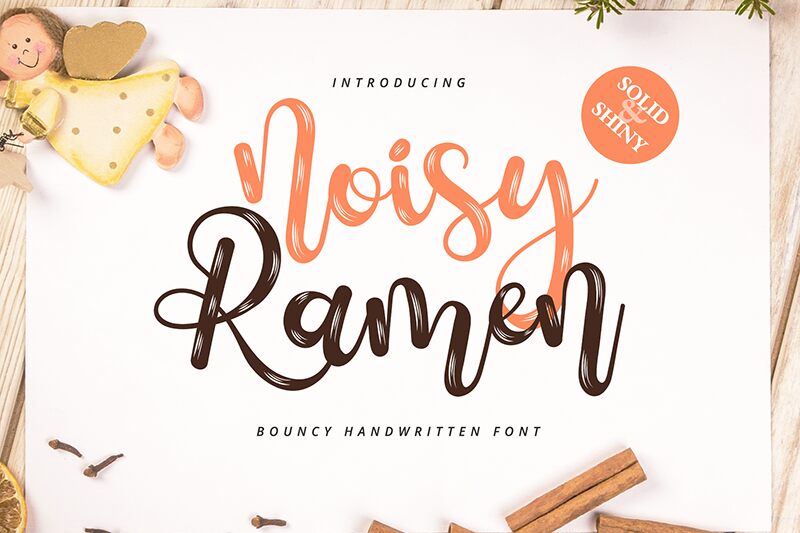
Noisy Ramen
Noisy Ramen font by Airotype Studio is an expressive brush typeface with a hand-drawn feel and artistic flair. This free handwritten font has an elegant flow and a lively presence which instantly grabs attention when combined with other design elements. The letters are smooth, natural, and highly readable.
Add Noisy Ramen to your branding designs, quotes, invitations, labels, apparel designs, advertising posters or banners. Get it included in packaging designs and social media content or used for handwriting animation effects in digital campaigns.